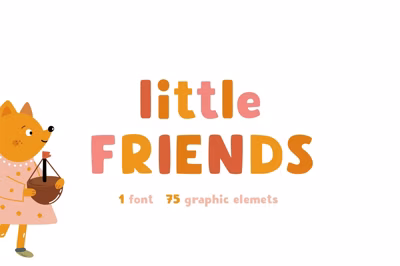
Cartoon Font Bundle V2 Free Download is a vibrant and playful collection of typefaces designed to bring your creative projects to life with bold personality and fun energy. Packed with a variety of cartoon-inspired fonts—ranging from bubbly and round to comic book-style and hand-drawn—this bundle is perfect for kids’ content, animated titles, comic strips, birthday invitations, YouTube thumbnails, and more.
Each font in the bundle offers a unique twist, giving you the flexibility to mix and match styles for different moods and themes. Whether you're crafting for a young audience or just want to inject some fun into your designs, this bundle has everything you need. Test them all for free before committing to commercial use—but don’t forget, a proper license is required for any business or monetized work.
Upgrade your design toolkit with Cartoon Font Bundle V2 Free Download and let your creativity bounce, stretch, and pop with expressive, character-filled typography that stands out every time.